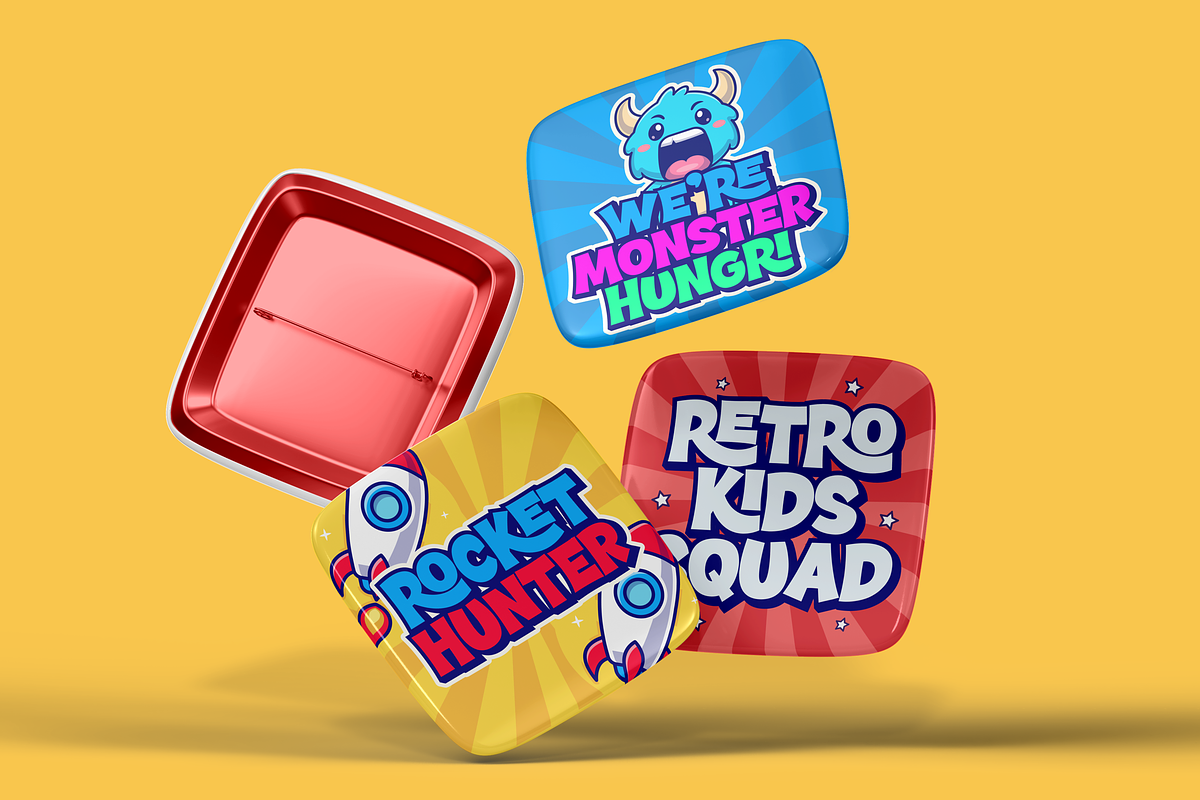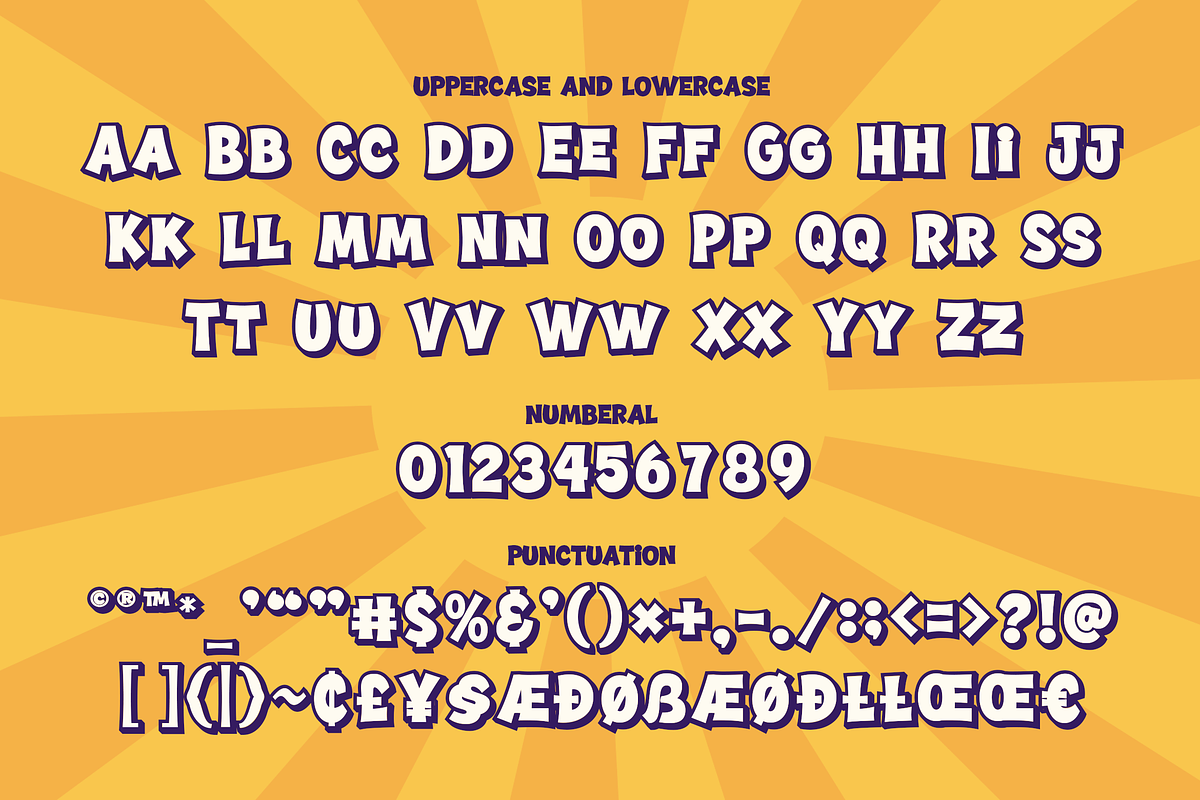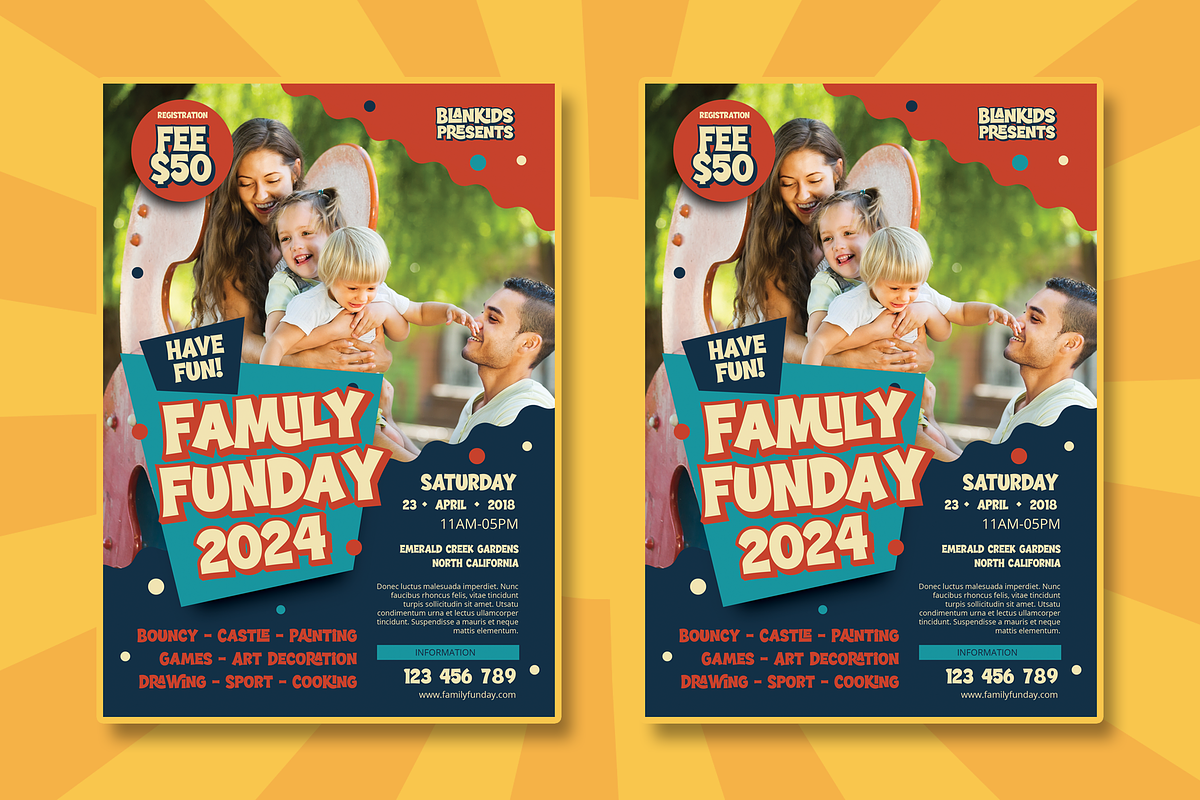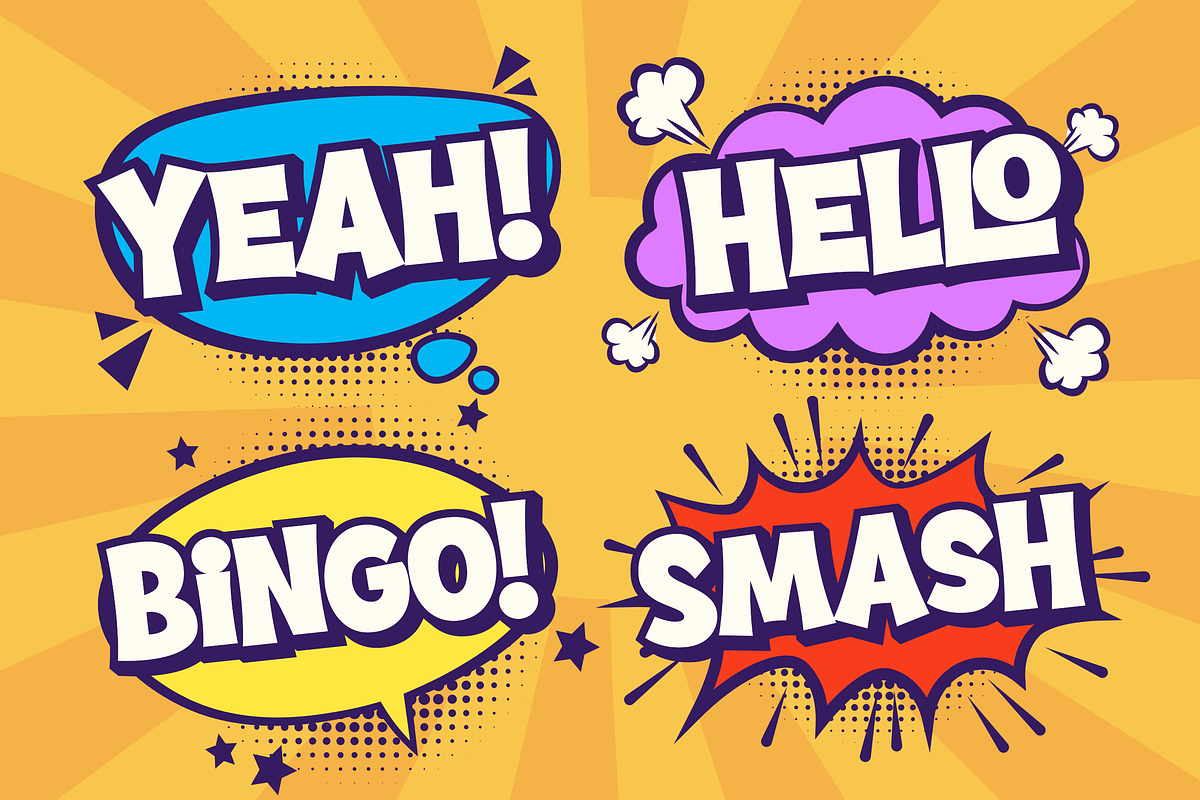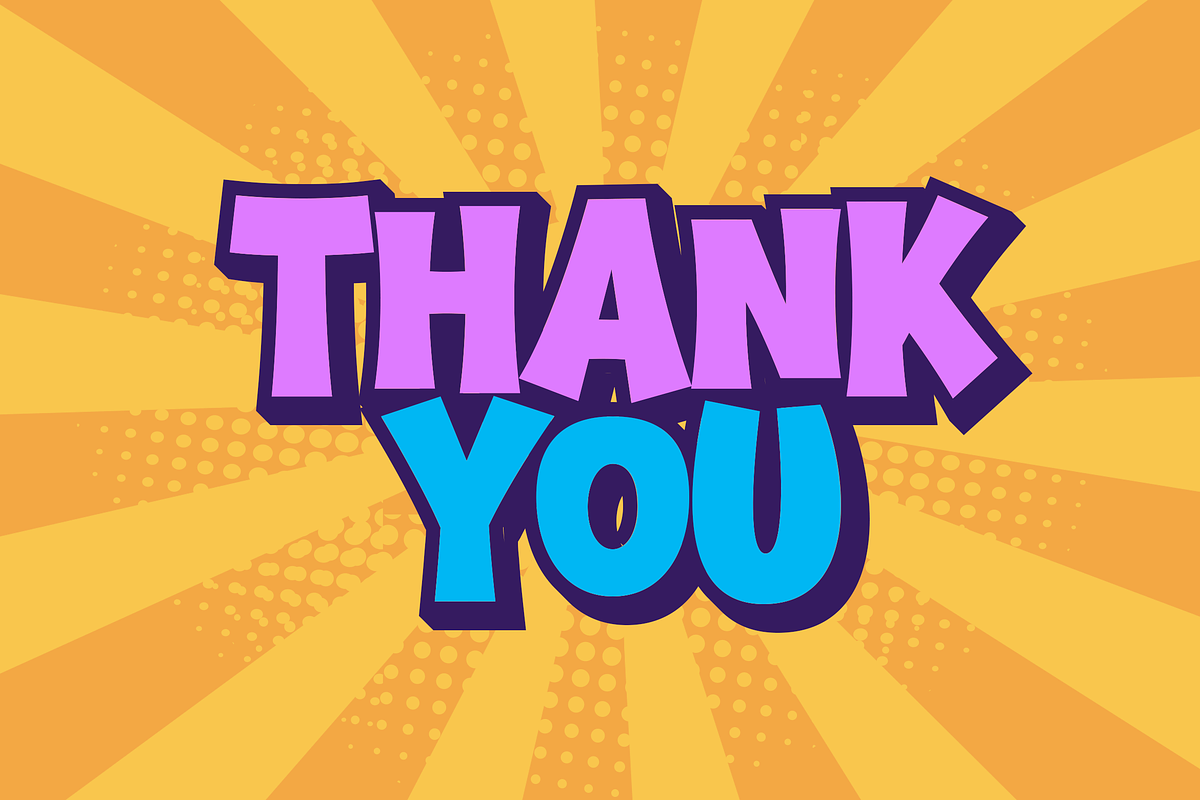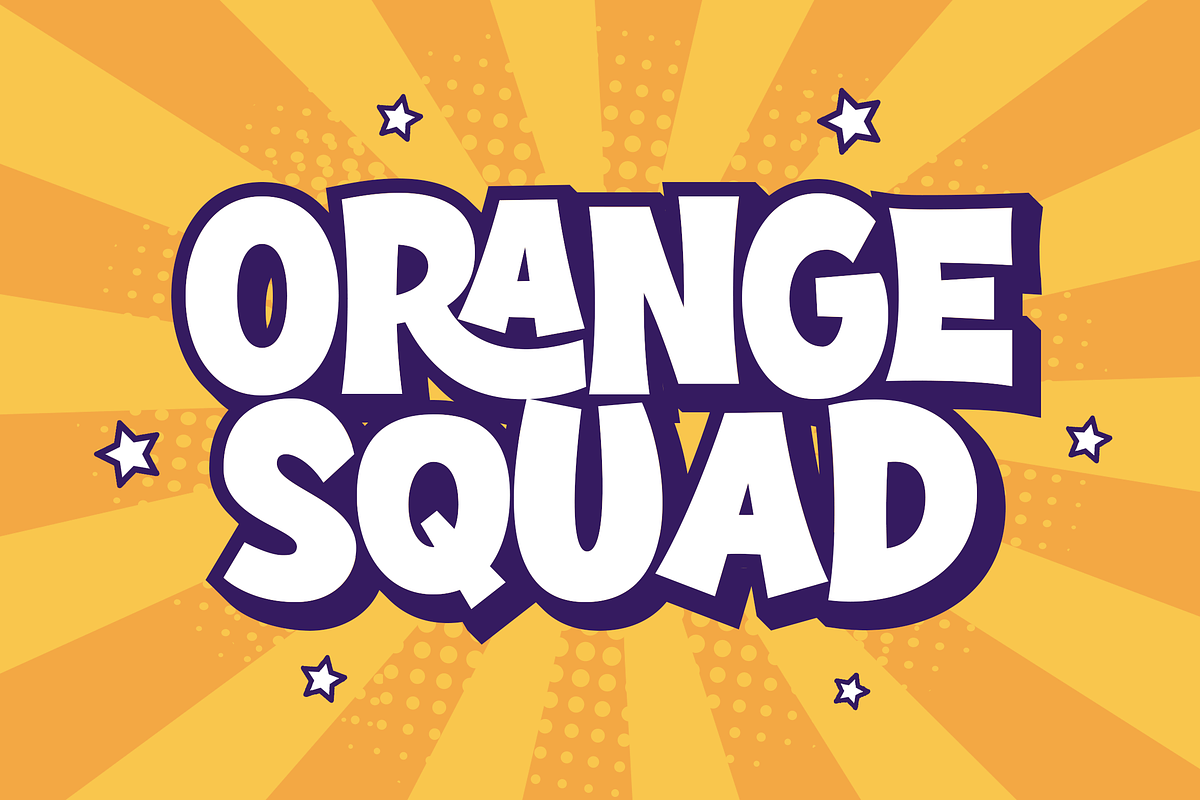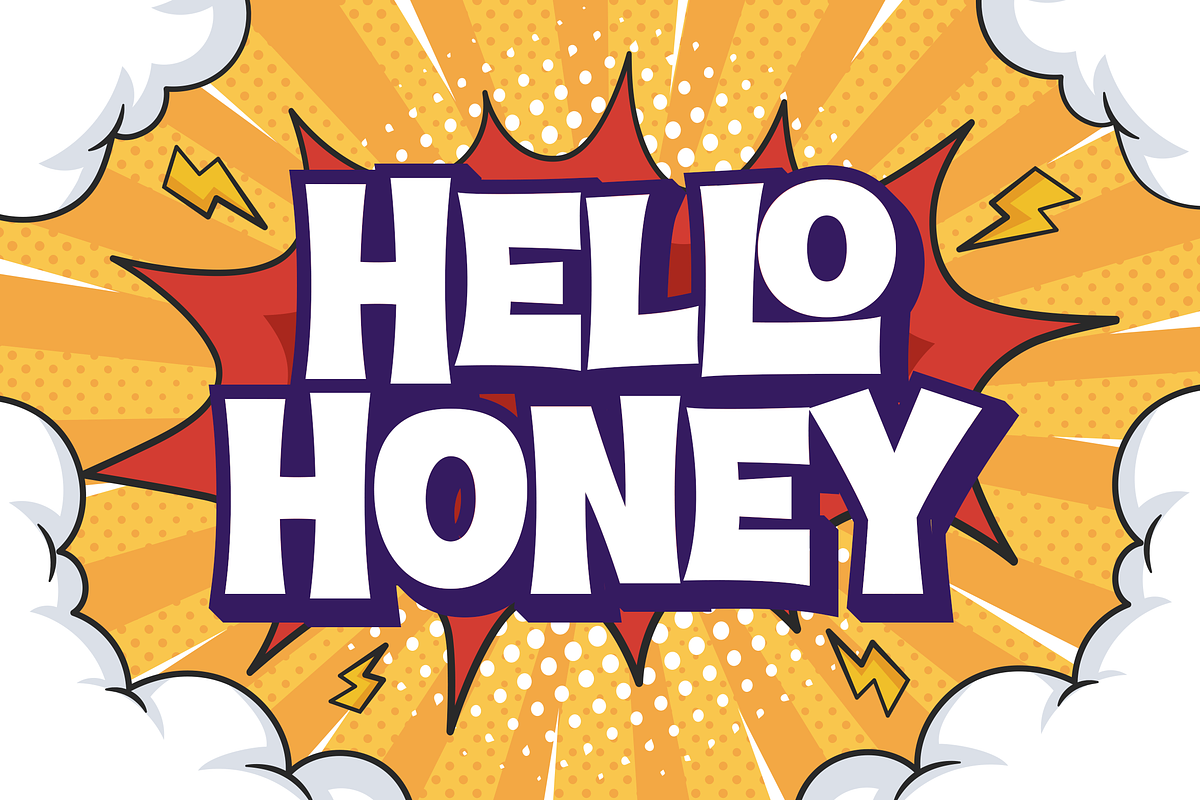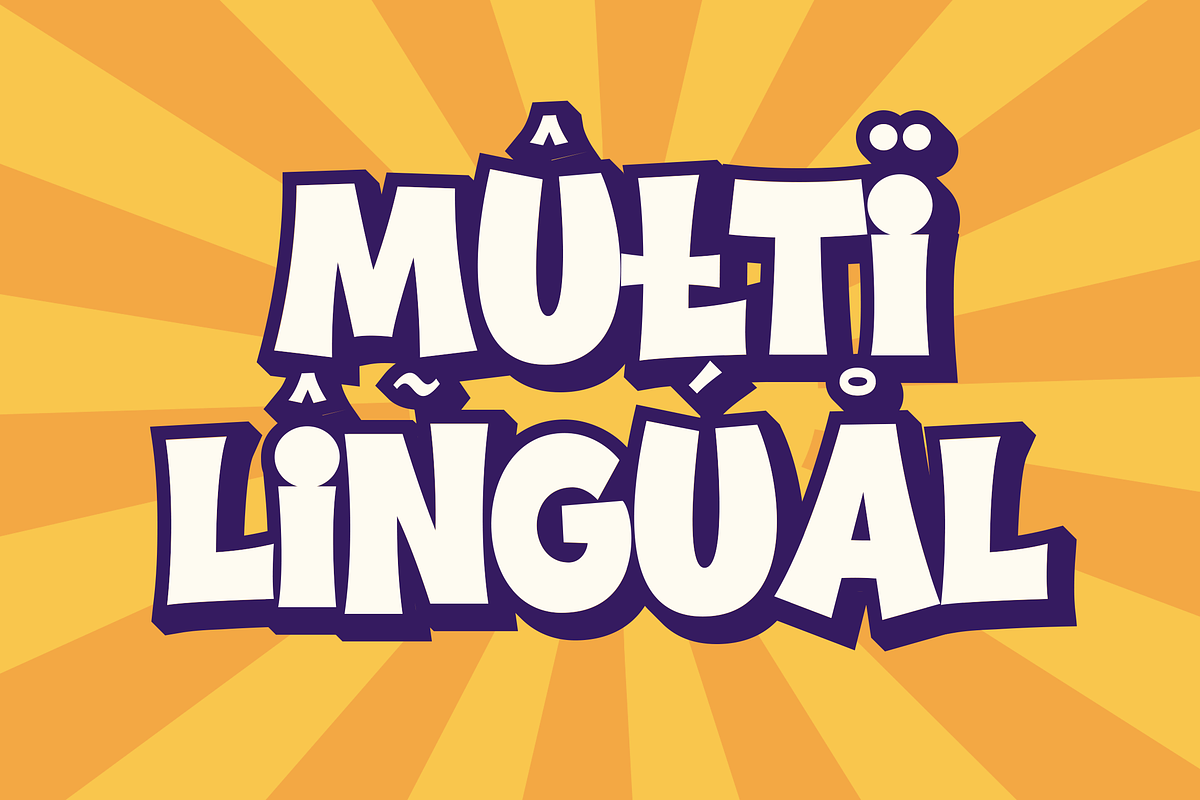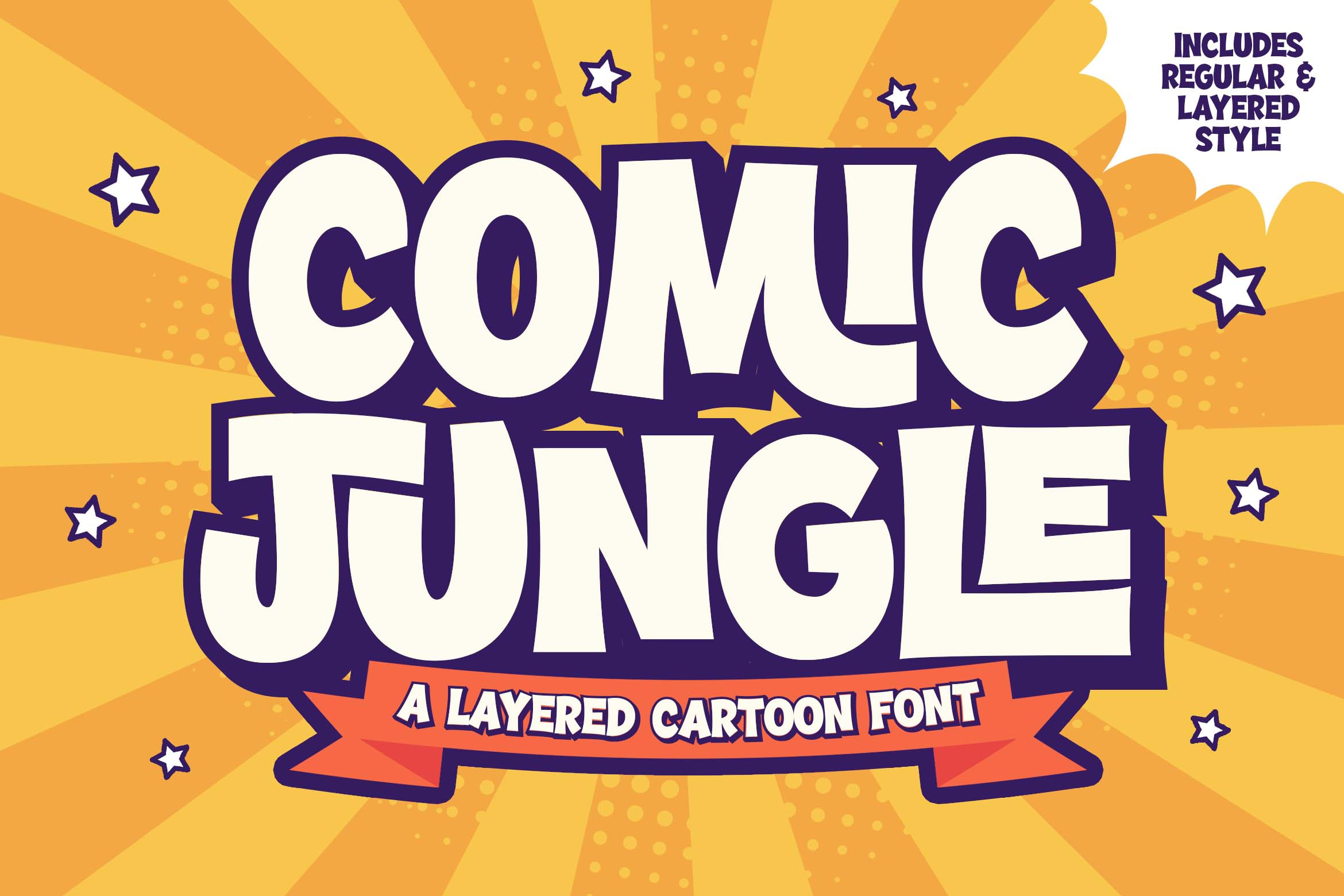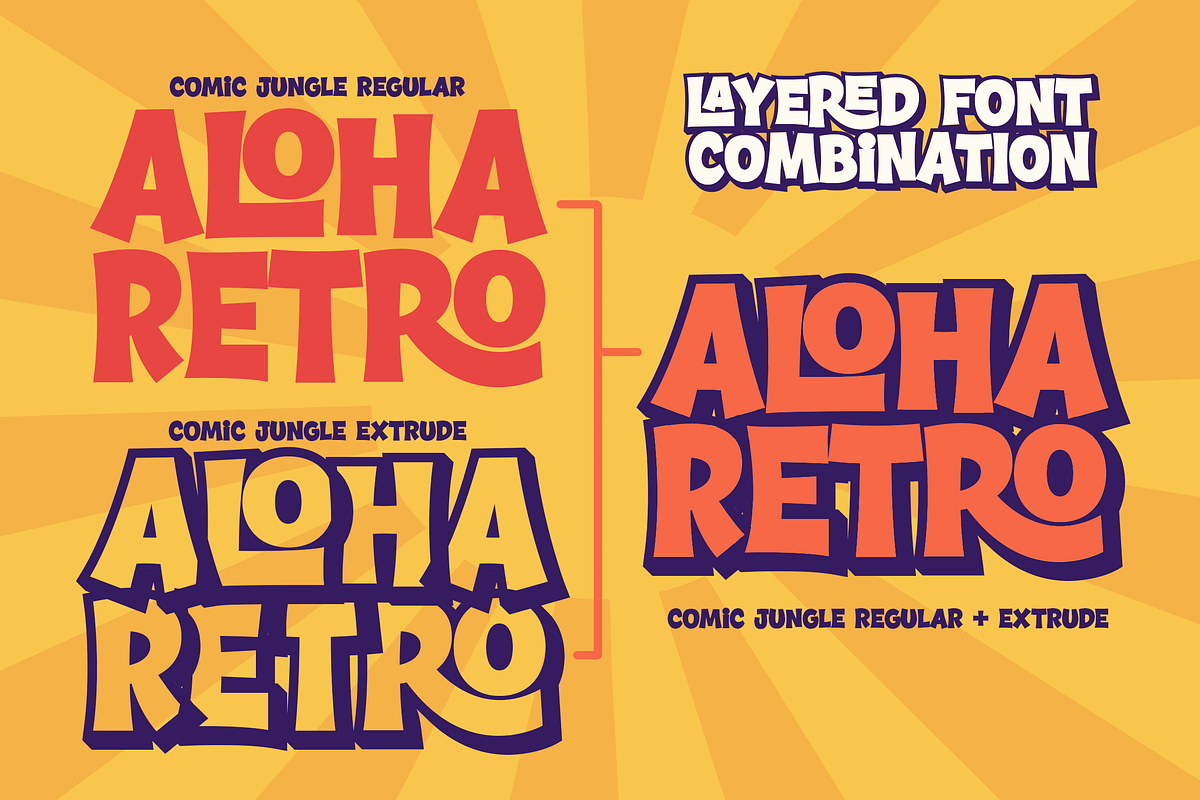
Comic jungle a playful cartoon font
Hello, awesome people! This time, we have a new font called Comic jungle a playful cartoon font combination by Blankids Studio.
Comic jungle , a playful cartoon font combination is made for any professional project branding, such as logotype, comic, watermarks, poster, branding, promotions, product packaging, etc. Every letter has a cartoon and comic style design. This font comes in 2 font combination regular and extrude.
Comic jungle font includes a full set of sporty uppercase and lowercase letters, numerals and punctuation. This font has a cartoon style. See the previews above to get some inspiration on how to use them. Happy designing!